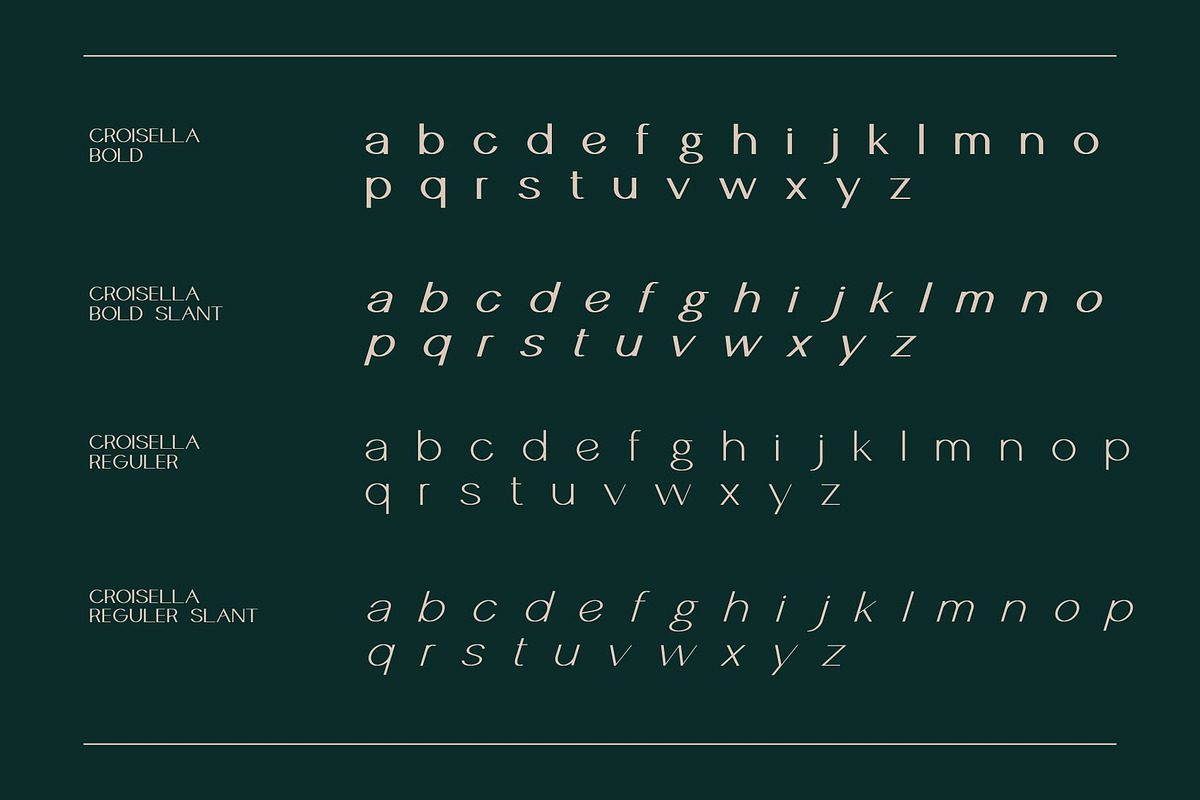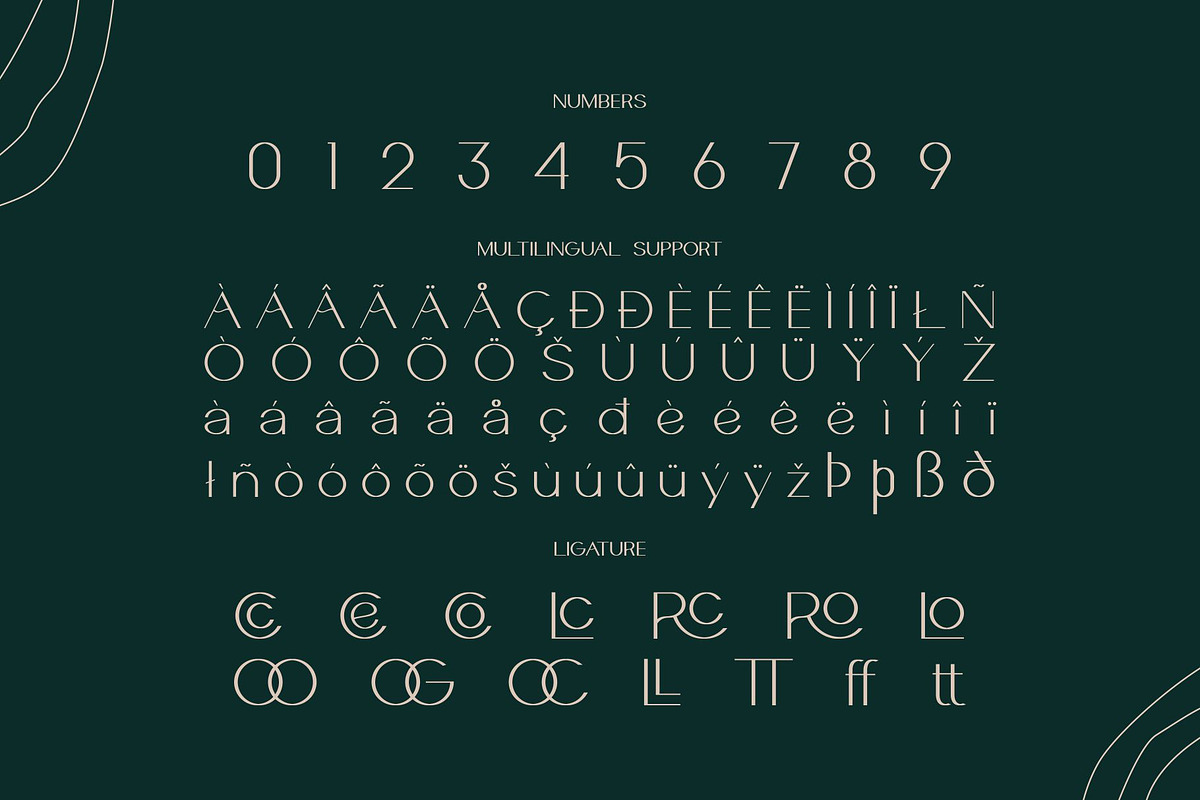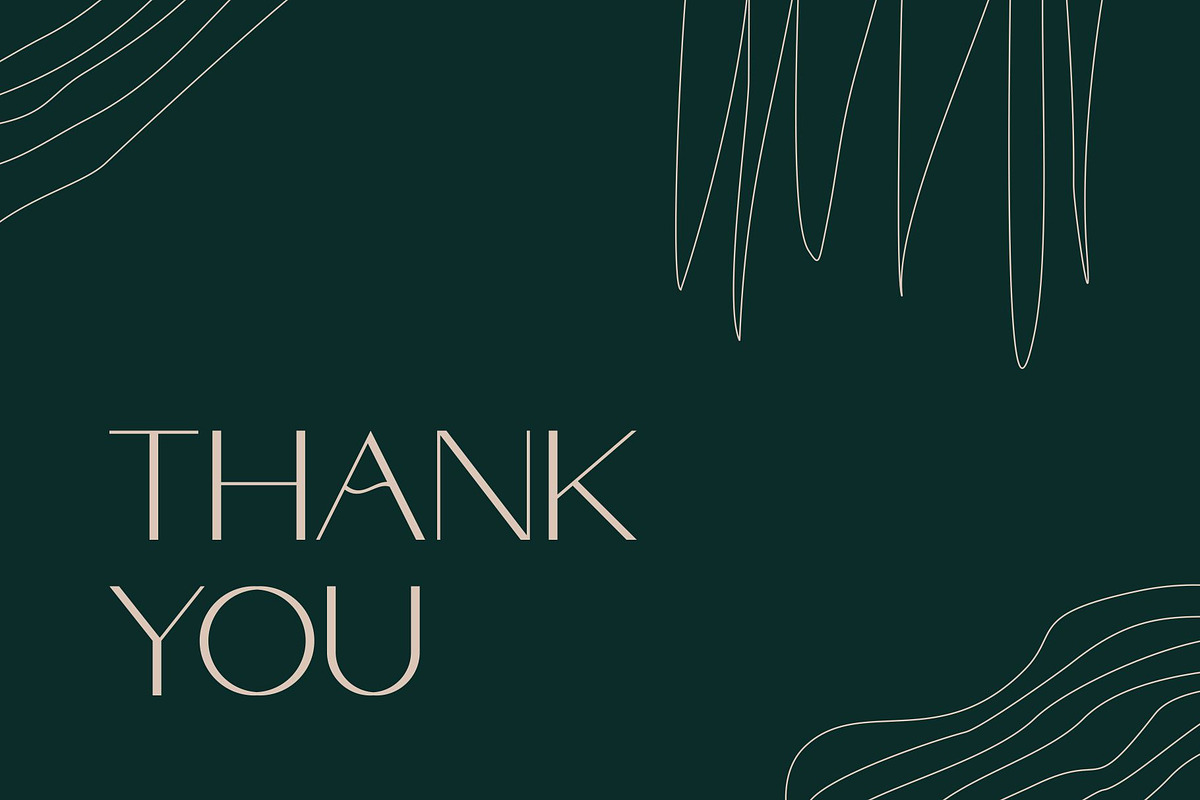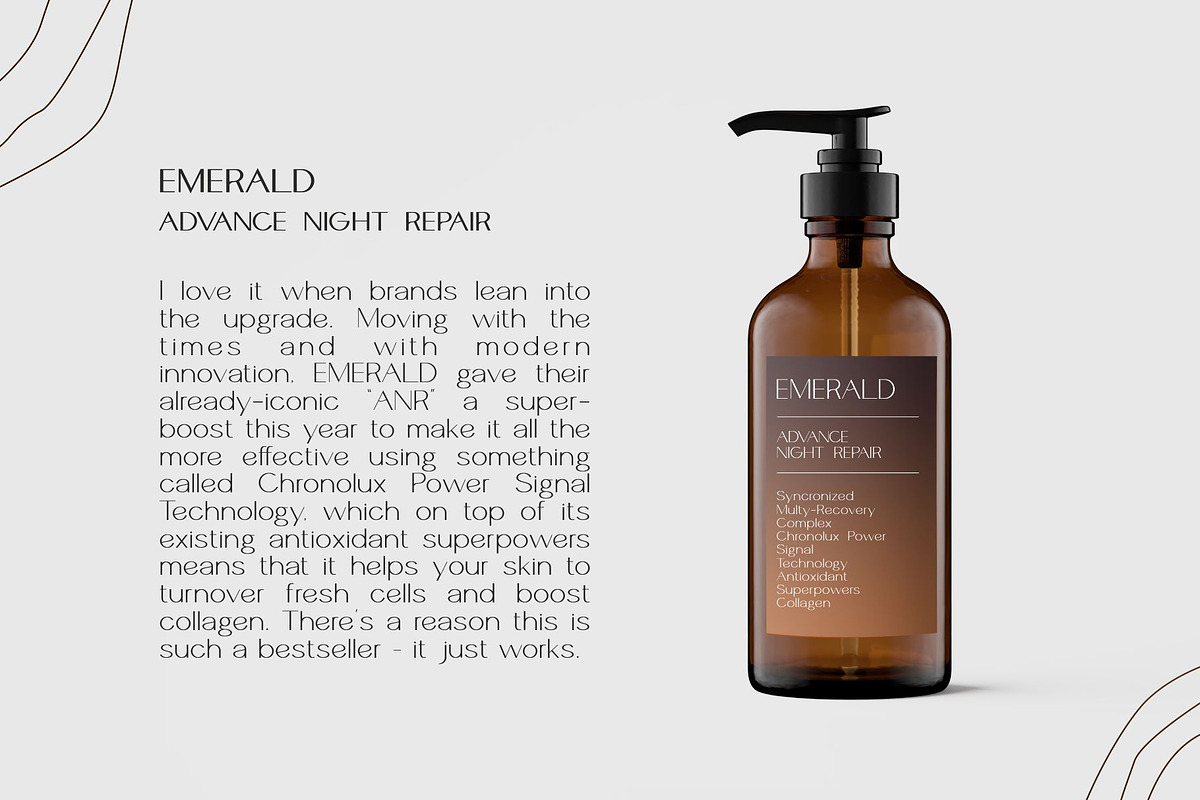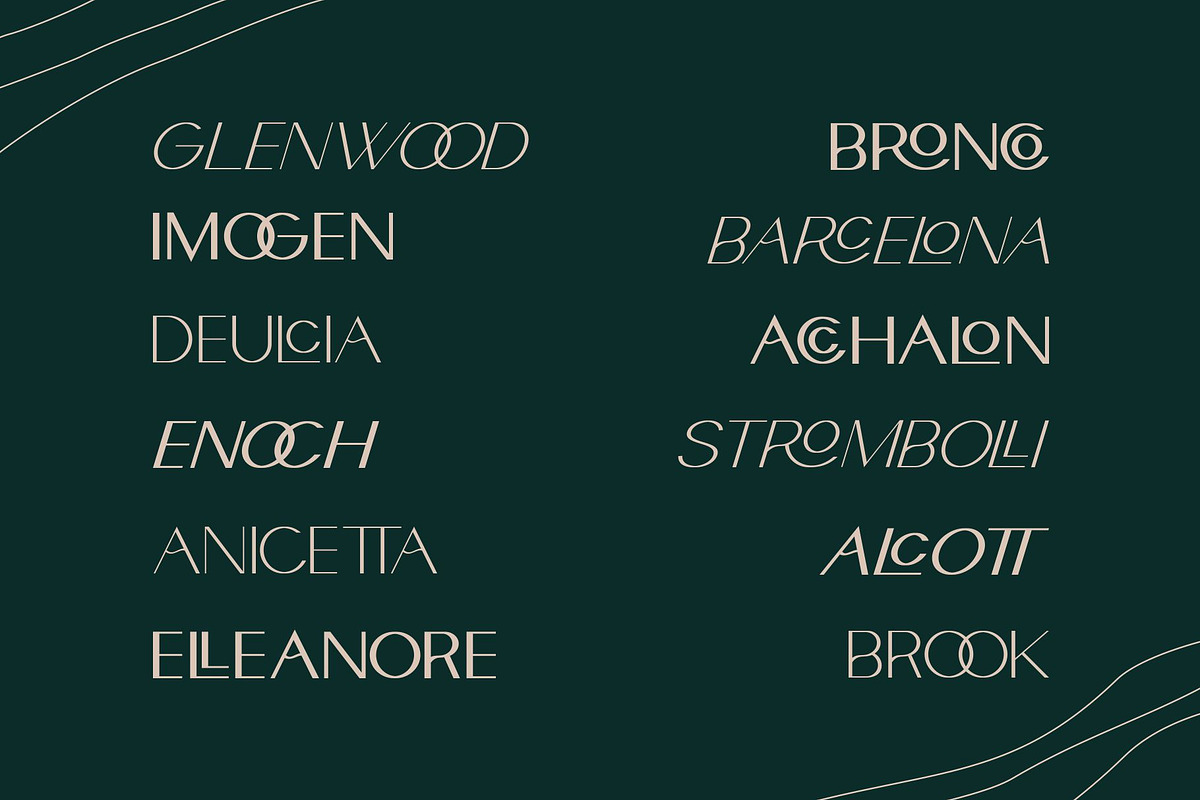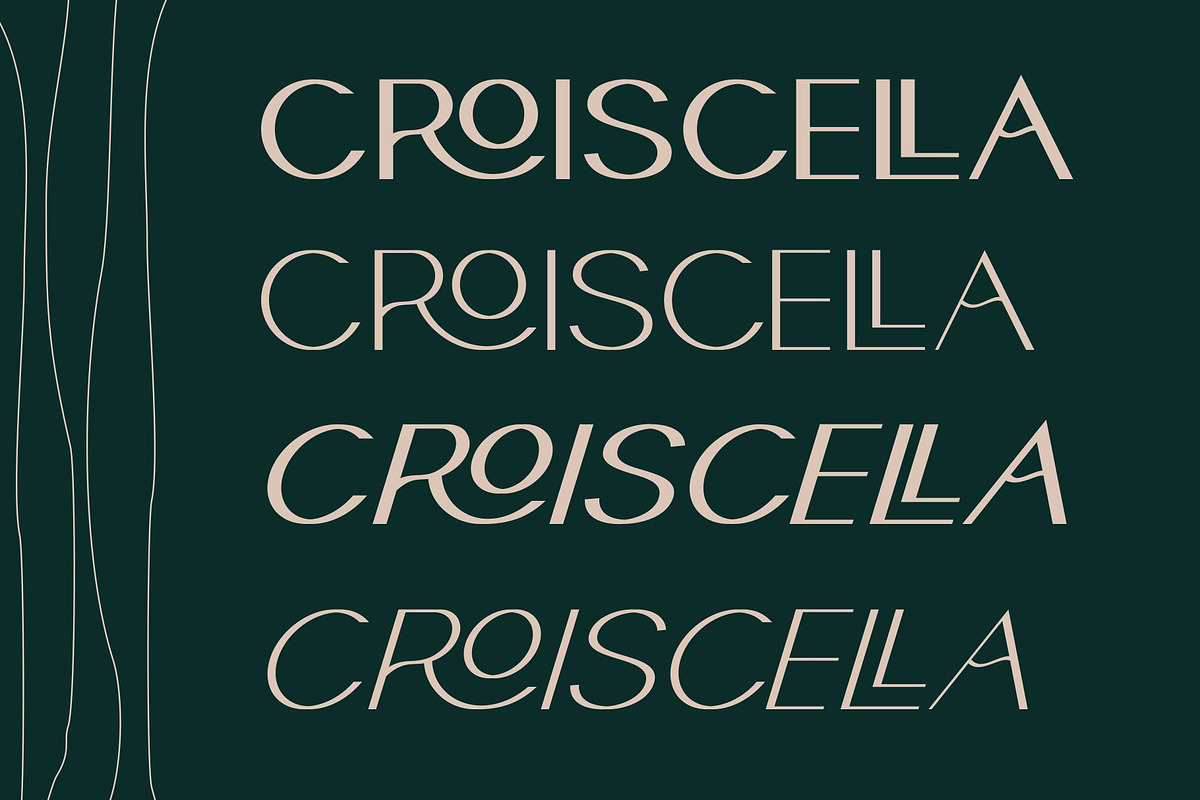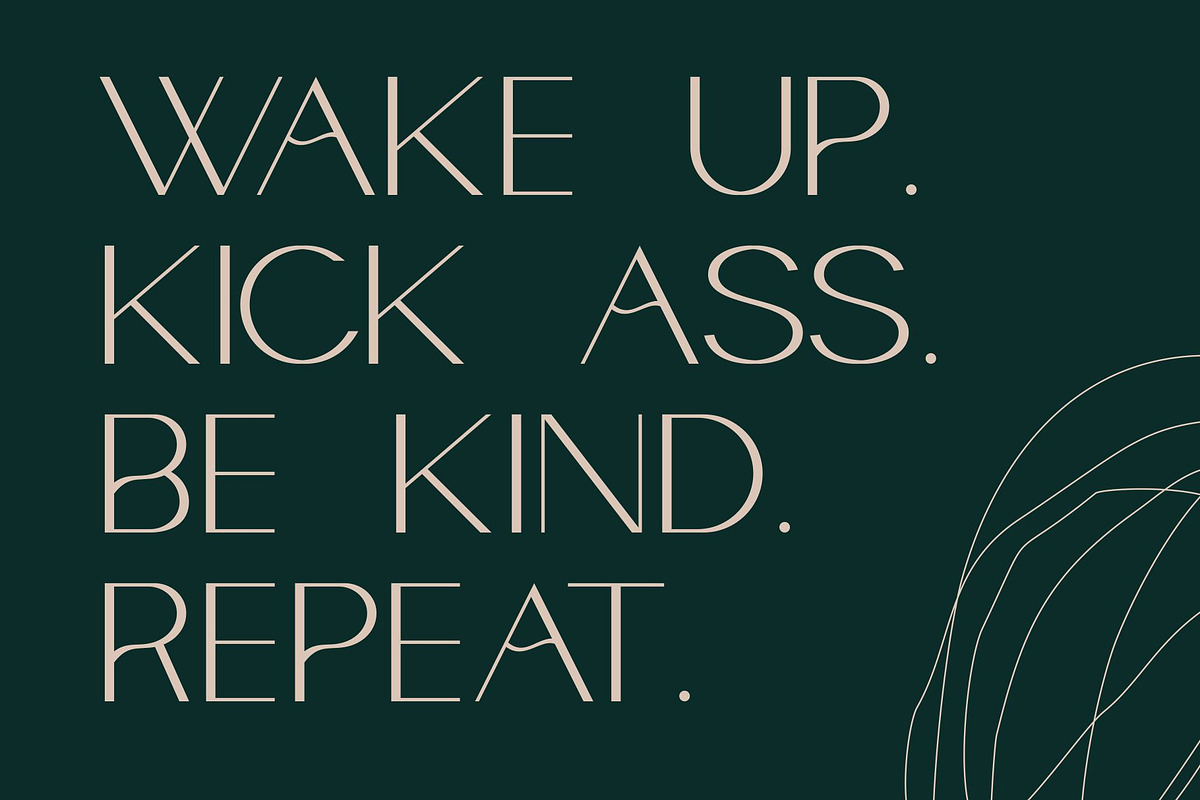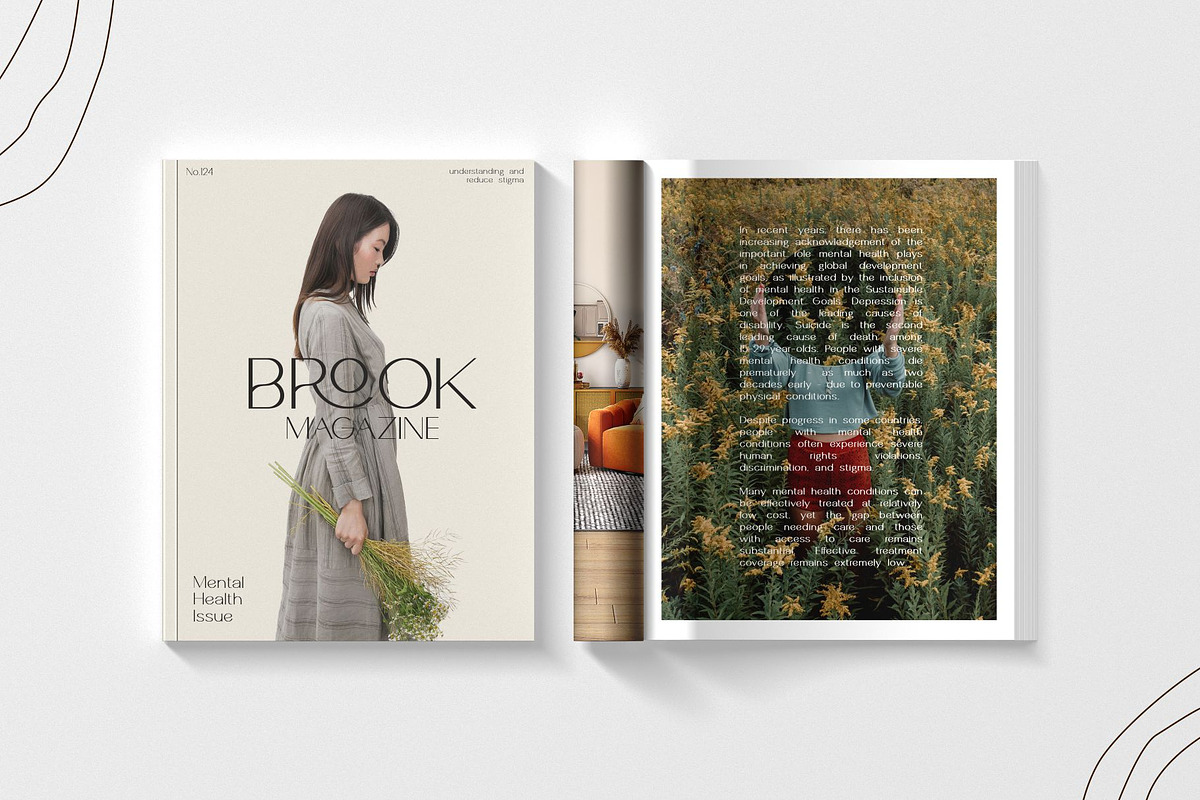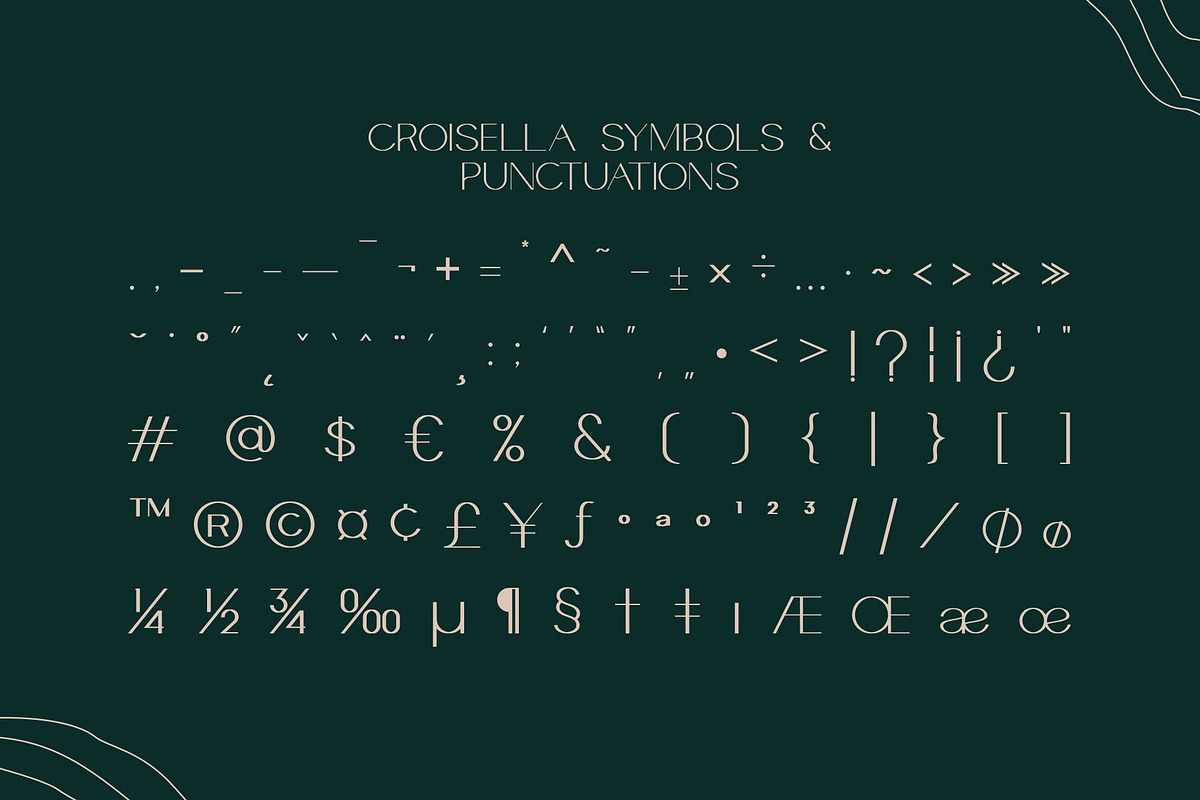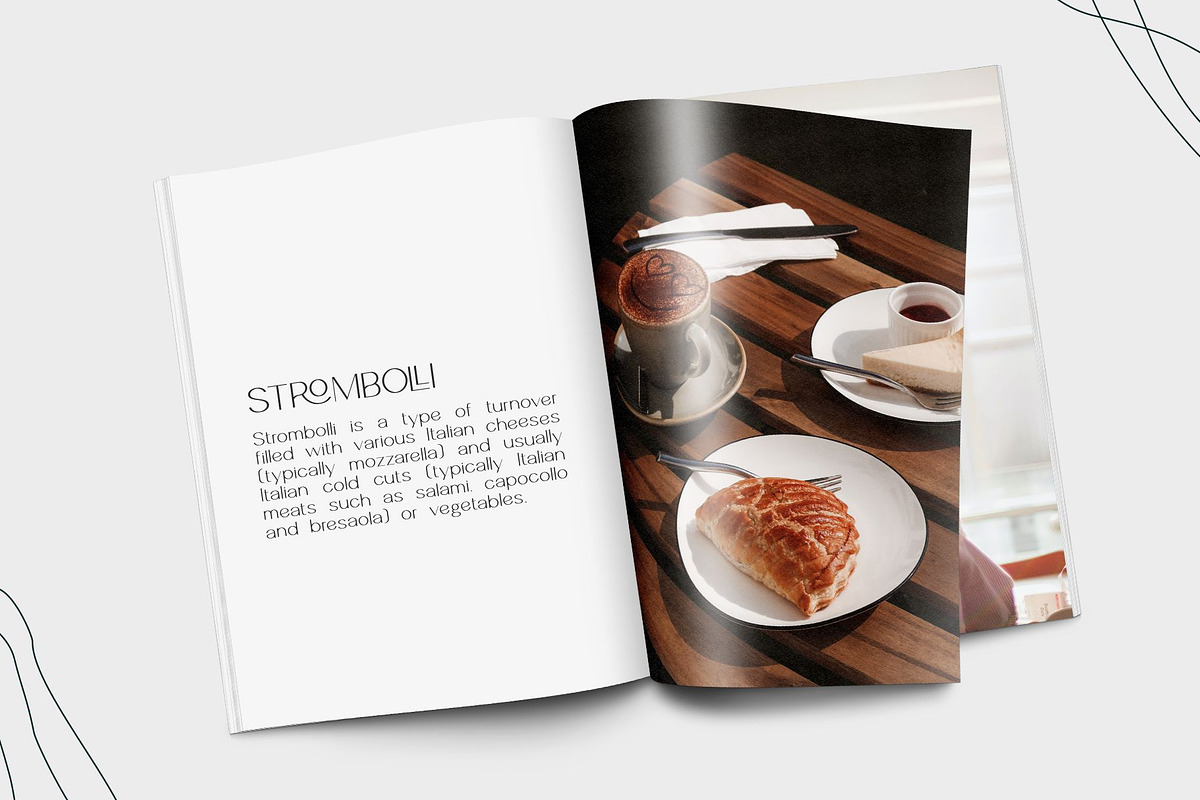
Croiscella Elegant Sans Serif
Hello. Introducing our sans serif typeface "Croiscella"
Croiscella is elegant and modern sans serif font. it has a geometric, classy, and simple atmosphere. Croiscella came with 2 weight, Reguler and Bold, 2 Slant fonts. It has a ligature and support multilingual language. It can easily be matched to an incredibly large set of projects, and good for communicating your brands.